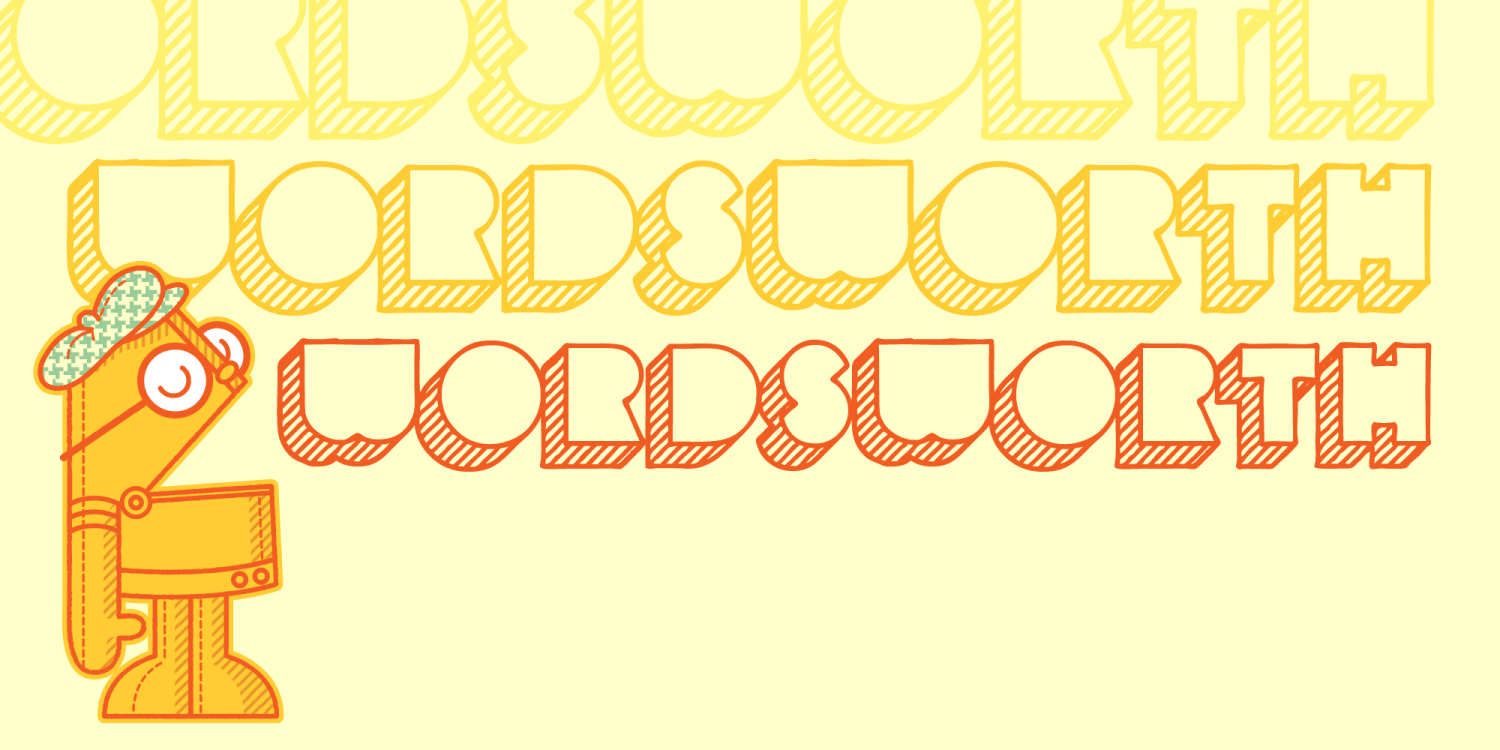
Wordsworth
Vintage futuristic robots are so cool. Take Wordsworth for example. Built in a 1960's sci-fi world, he embodies the classic charm of a British butler packed into 14 megabytes of raw word power. Not only can he compute any math problem you give him in under 2 minutes, but he'll deliver the answer in a voice that sounds just like Sir Anthony Hopkins speaking through a vocoder. And this font embodies the classic charm of Wordsworth, a futuristic design packaged up with an old tymey feel. Please enjoy this font and use it for a project that would prompt anyone to spark out a well-placed "Good show, old chap!"